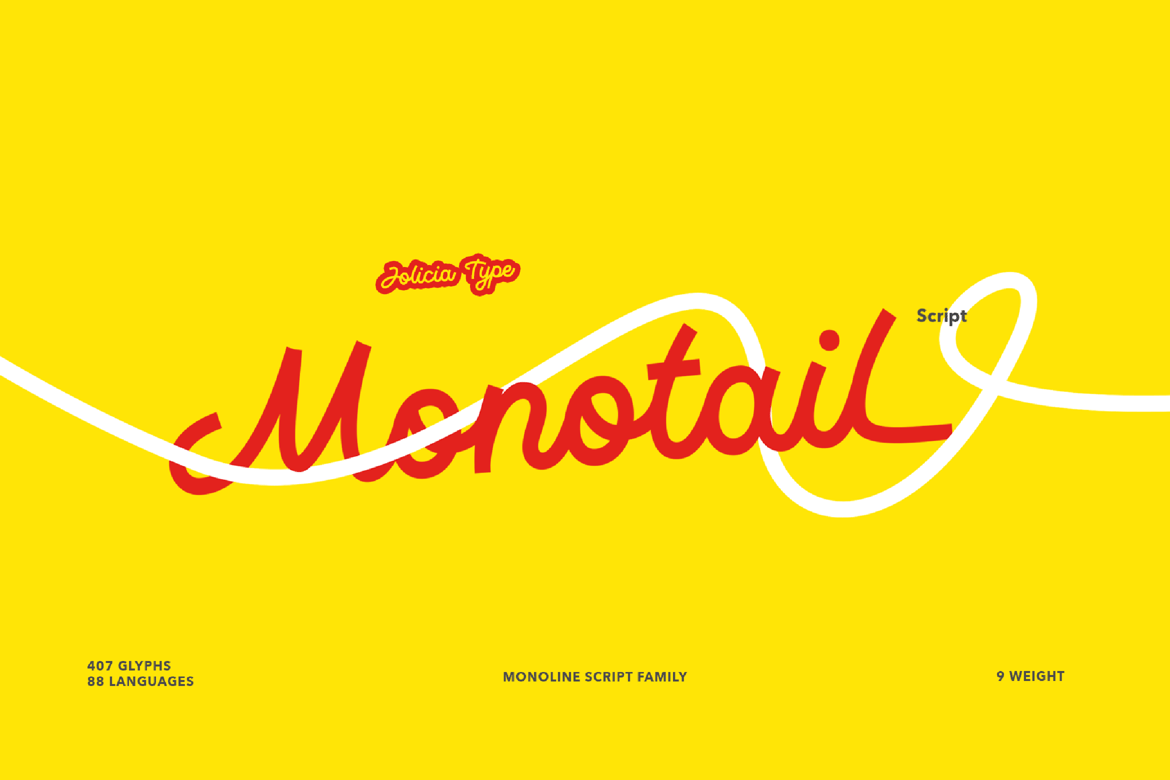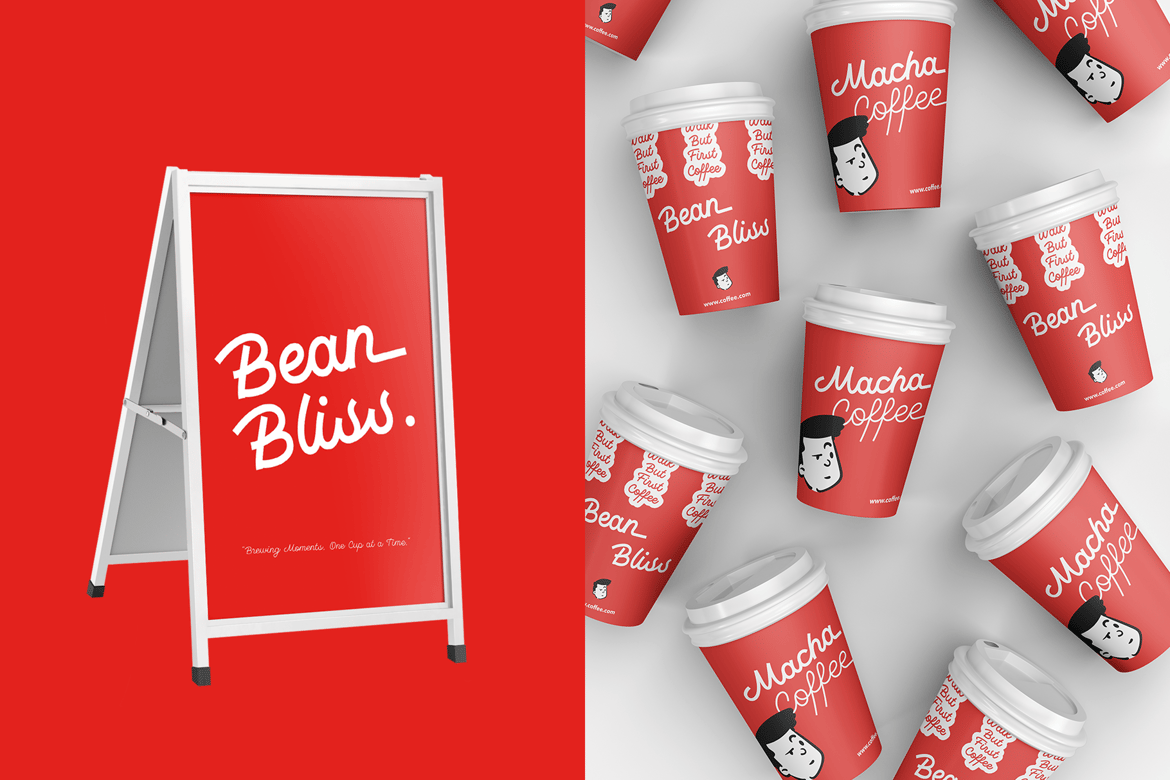
Monotail Script | Monoline Font Family
Explore the sleek and refined world of Monotail Script, a monoline font family designed by Laire Banyu Sandi. With 9 distinct weights ranging from Thin to Black, this font stands out for its clean, consistent strokes and meticulous attention to detail, making it an essential choice for modern typography enthusiasts.